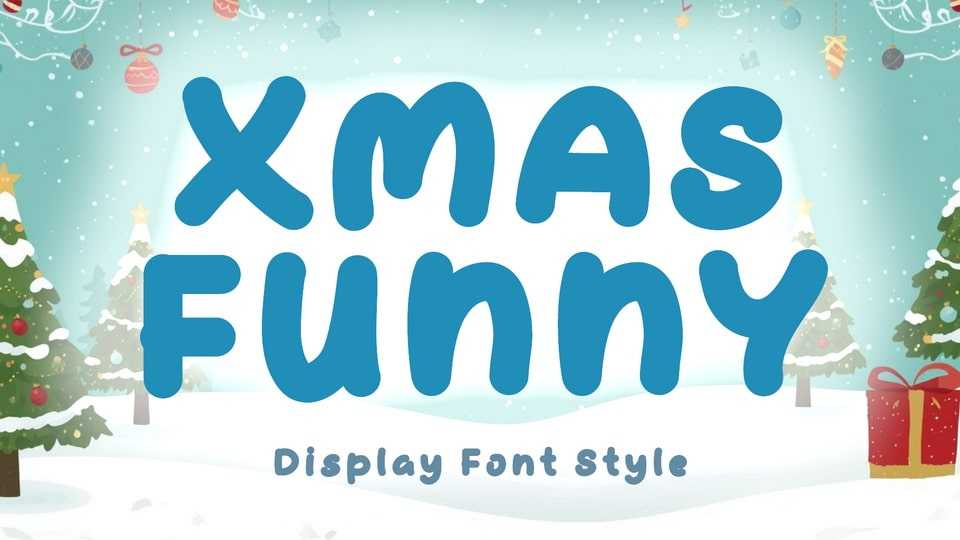
Download Xmas Funny font, a unique and fun display typrface. It features uppercase and lowercase letters, numerals, punctuations, and multilingual support.